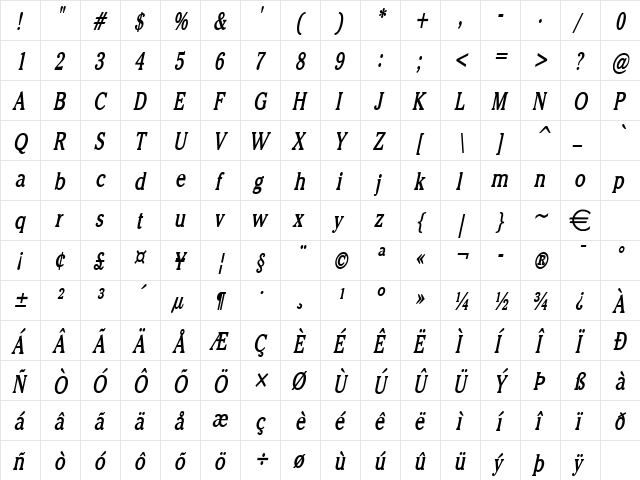
ChelseyThin BoldItalic Font Preview
ChelseyThin BoldItalic
Design Context for ChelseyThin Typeface
ChelseyThin takes a measured approach to typography — its balanced proportions and neutral character make it a reliable workhorse for both digital and print work. Its italic angle brings a sense of urgency and motion to the letterforms. Its bold stroke weight gives it real presence on the page.
Pro Tip: Use ChelseyThin for emphasis, pull quotes, and subheadings where its slanted energy can add rhythm to the layout.